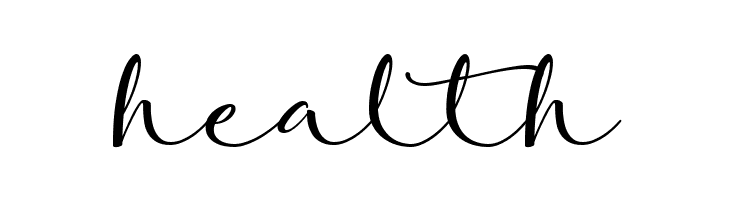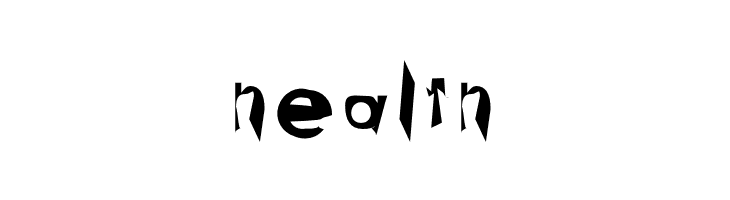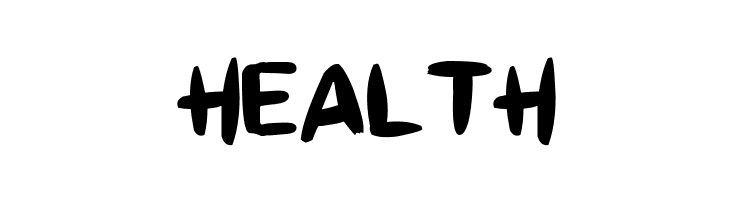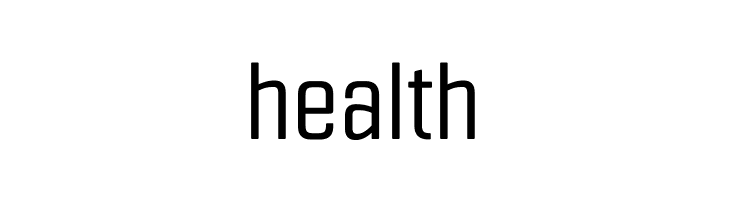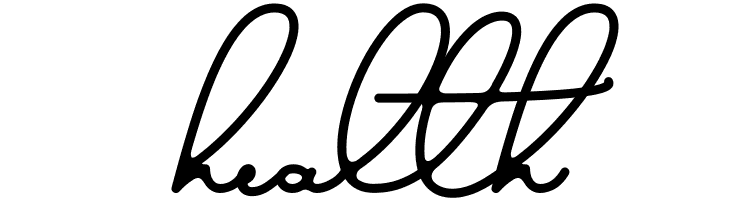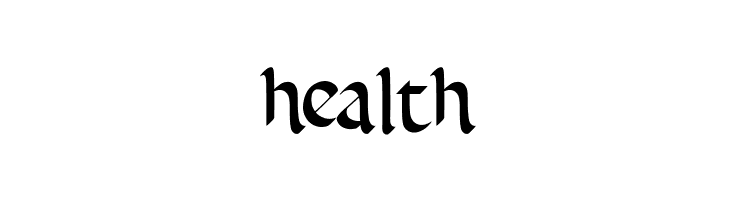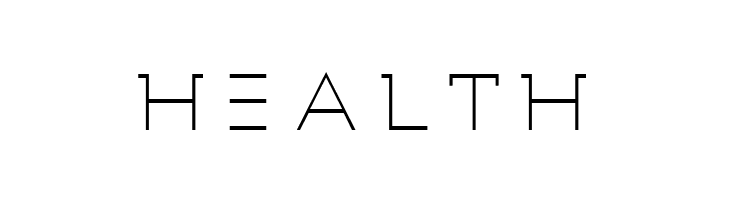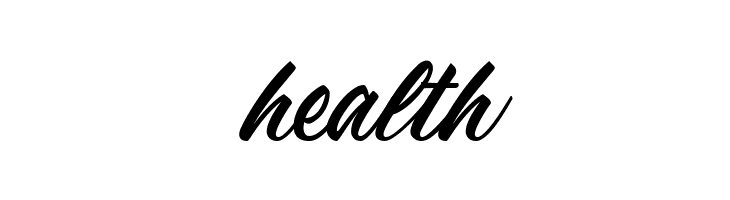
An elegant, cursive font with flowing, handwritten style.
An abstract, fragmented font with bold, irregular shapes.
A bold, playful handwritten font with a casual and friendly style.
A raw, hand-drawn font with jagged strokes and an energetic style.
A dynamic script font with fluid, cursive strokes and bold numerals.
A playful, hand-drawn font with dynamic strokes and artistic flair.
A calligraphy-inspired typeface with elegant, flowing characters and sharp angles.
A dual-style font with bold geometric and thin minimalist uppercase letters.
A dynamic and flowing script font with elegant, cursive letterforms.